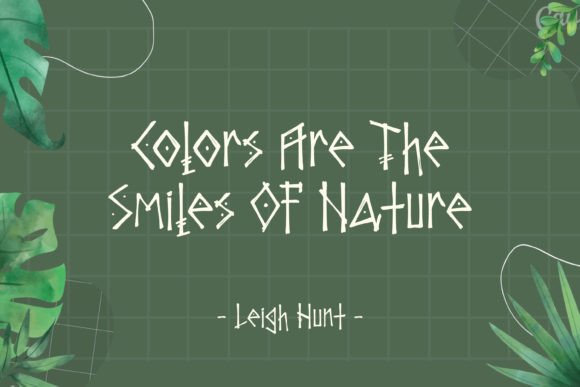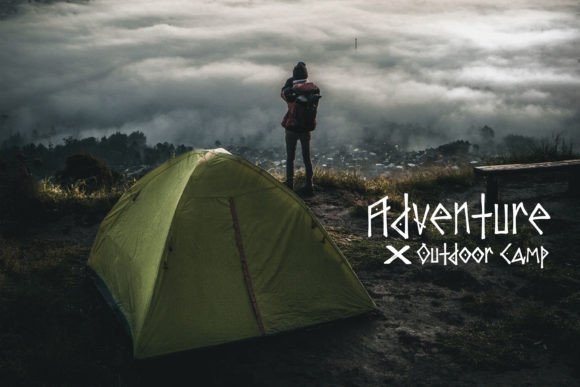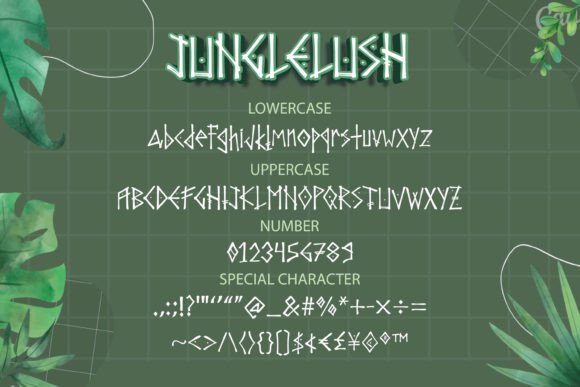
Introduction to Junglelush Font
Junglelush is a simple and distinct display font.
Fall in love with its incredibly versatile style and use it to create spectacular designs .
Key Features of Junglelush Font
Why Choose Junglelush Font?
Junglelush Font offers exceptional quality and versatility, making it a valuable addition to your design toolkit. Whether you’re creating for personal projects or commercial use, Junglelush Font delivers professional results.